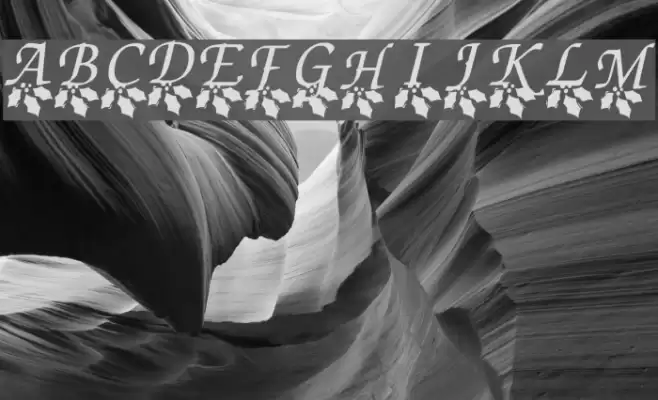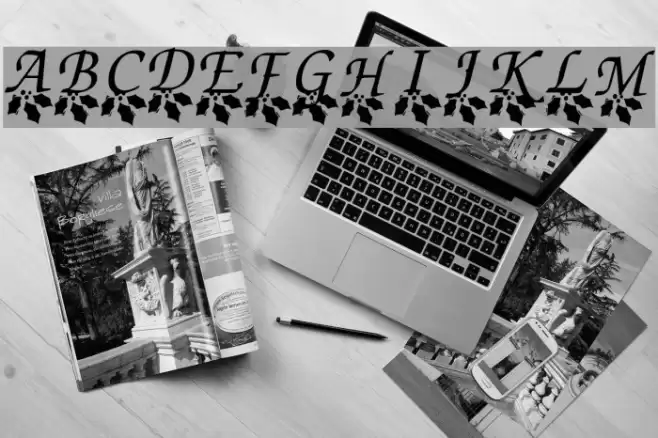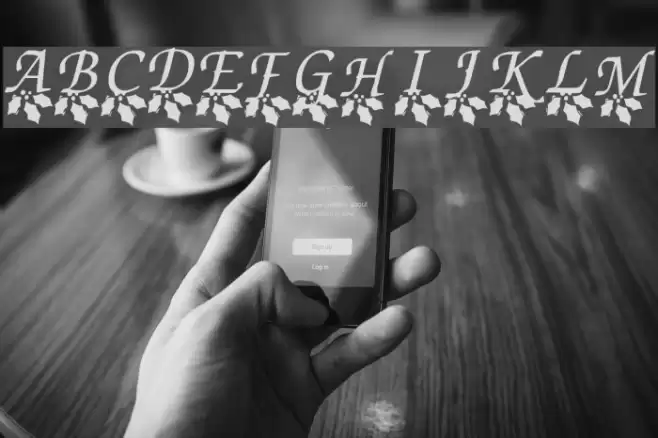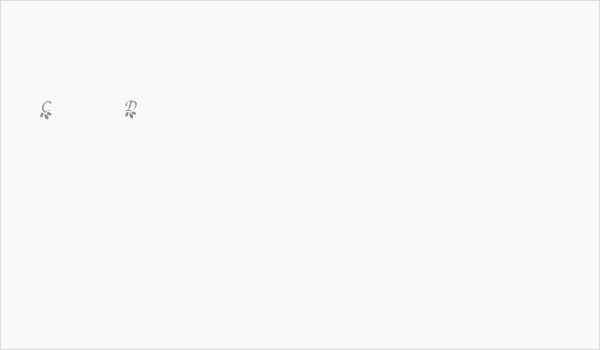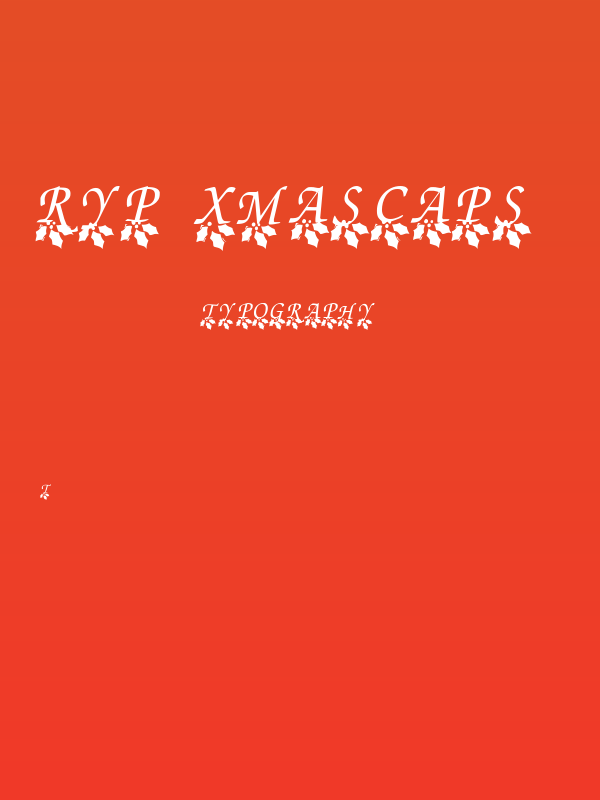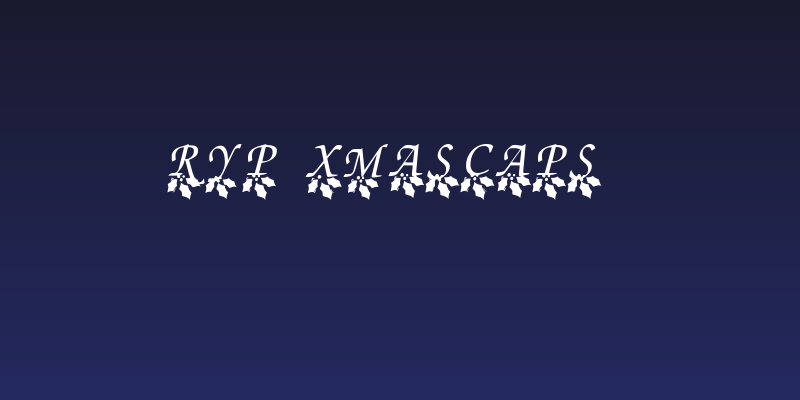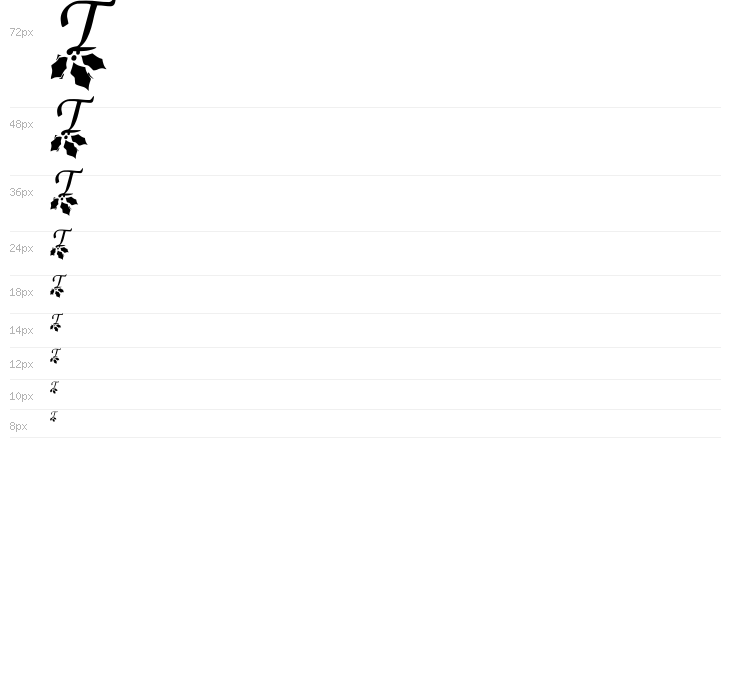
ryp_xmascaps1 Font
ryp_xmascaps1 Description
This decorative font features elegant, serif-style capital letters adorned with festive holly leaves and berries, creating a holiday-themed appearance. Each letter is intricately designed, combining traditional serif elements with a playful, seasonal twist. The holly decorations add a unique and whimsical touch, making the font ideal for festive occasions. The overall style is both classic and decorative, with a medium contrast in stroke thickness that enhances readability while maintaining its ornamental charm.